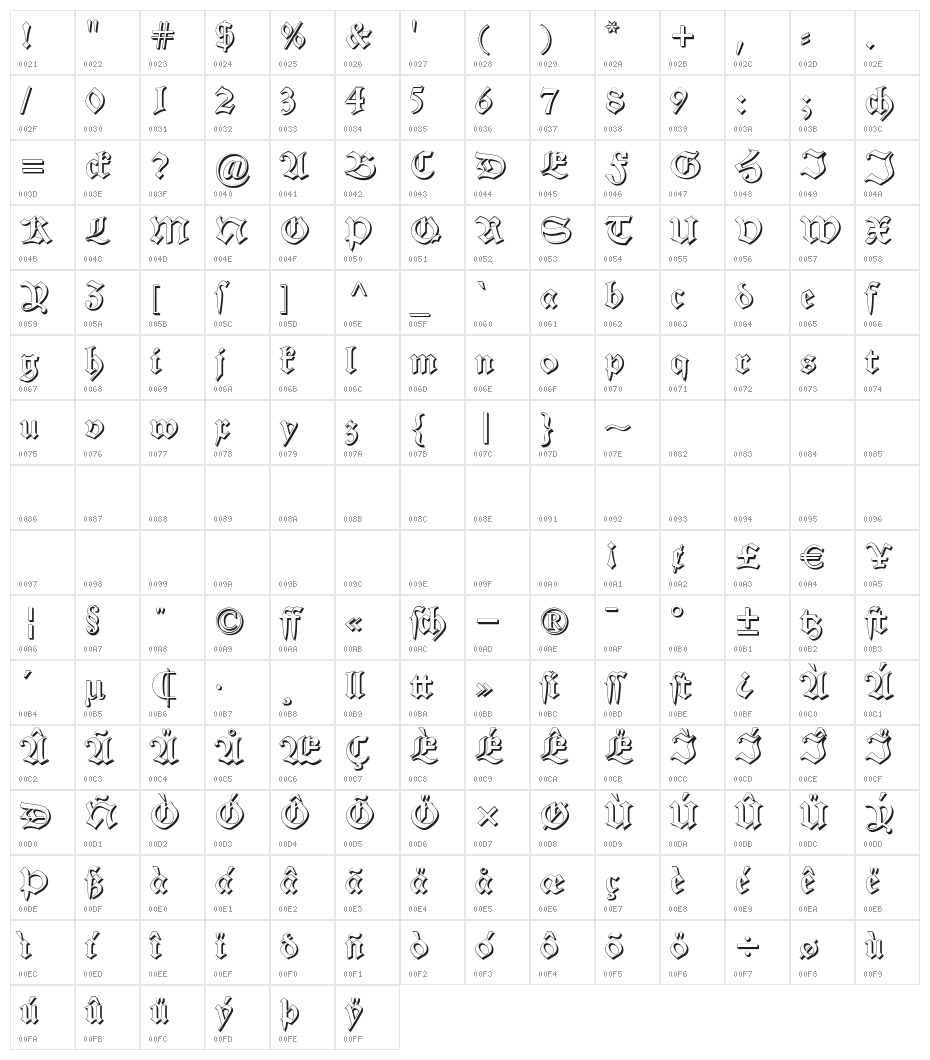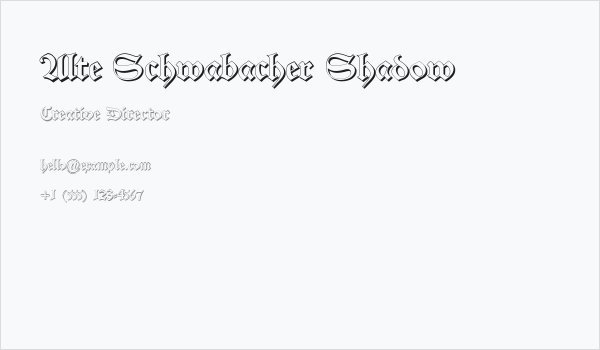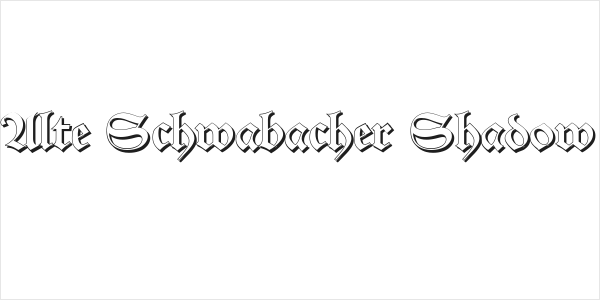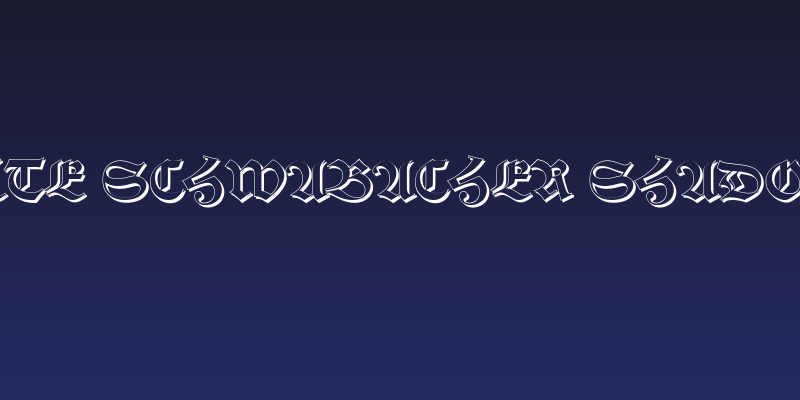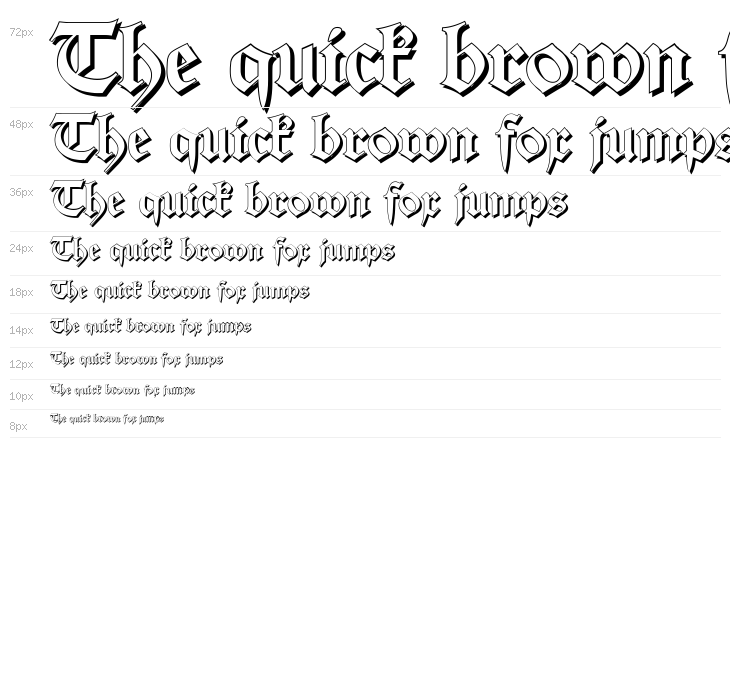
Alte Schwabacher Shadow Font
Alte Schwabacher Shadow Description
This font is a striking example of Blackletter style, characterized by its bold, angular lines and intricate details. The shadow effect adds depth and a three-dimensional quality, enhancing its dramatic appearance. Each character is meticulously crafted, with sharp edges and a gothic flair that evokes a sense of historical elegance. The uppercase letters are particularly ornate, while the lowercase maintains a consistent style, ensuring readability. The numerals and special characters are equally detailed, making this font versatile for various applications.
| Use Case | Headlines, Logos, Decorative purposes |
| Proposed Projects | Ideal for projects requiring a historical or gothic aesthetic, such as book covers, posters, or branding for vintage-themed products. |